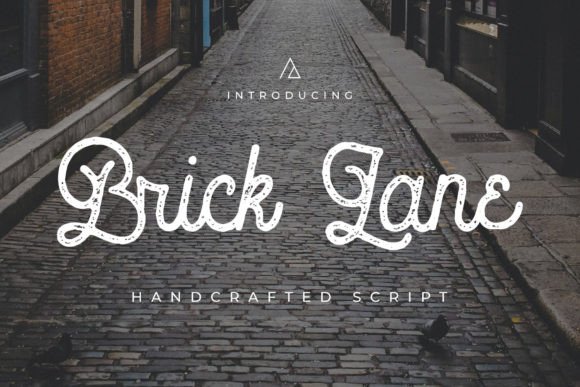
The Ultimate Guide to Brick Lane Font: Elevate Your Designs with a Handcrafted Touch
I’ll never forget the design project that led me to discover the amazing Brick Lane Font. I was working on a branding project for a trendy urban cafe, and I was struggling to find the perfect font that captured the vibe of the city. The client wanted something modern, yet handcrafted and unique. That’s when I stumbled upon Brick Lane, and it instantly became the star of the show! ✨
An Honest Review of Brick Lane Font
What I Love About Brick Lane Font
- ✨ Unique blend of uppercase and lowercase letters: The decorative swirls on uppercase letters paired with simple lowercase letters create a beautiful contrast that’s perfect for eye-catching designs.
- ✅ Handcrafted feel: The font’s imperfections and quirks give it a charming, artisanal vibe that’s perfect for trendy and urban-related projects.
- 🌈 Versatility: Brick Lane Font is suitable for a wide range of applications, from logos and branding to posters and social media graphics.
- 🤔 Limited use of punctuation: Some users have noted that the font’s punctuation options are limited, which might be a drawback for certain projects.
- ⚠️ Not ideal for body text: Due to its decorative nature, Brick Lane Font might not be the best choice for lengthy body text. It’s better suited for headings and titles.
Brick Lane Font comes with a range of OpenType features and glyphs that can elevate your designs. To access these features, you’ll need to use a design platform that supports OpenType, such as Adobe Creative Cloud. Some of the features you can expect to find include:
- Stylistic alternates: Swap out letters for alternative forms to add more visual interest to your designs.
- Ligatures: Use ligatures to combine letters and create a more fluid, connected look.
- Glyphs: Access a range of glyphs, including decorative swirls and flourishes, to add more personality to your designs.
The Story Behind Brick Lane Font
Brick Lane Font was designed with the urban landscape in mind. The designer, inspired by the vibrant streets of London’s Brick Lane, aimed to create a font that captured the area’s eclectic, handcrafted spirit. The result is a font that’s both modern and timeless, perfect for designs that need a touch of personality.
- Q: Is Brick Lane Font suitable for body text?
- A: No, Brick Lane Font is better suited for headings and titles due to its decorative nature.
- Q: Does Brick Lane Font come with OpenType features?
- A: Yes, Brick Lane Font comes with a range of OpenType features, including stylistic alternates, ligatures, and glyphs.